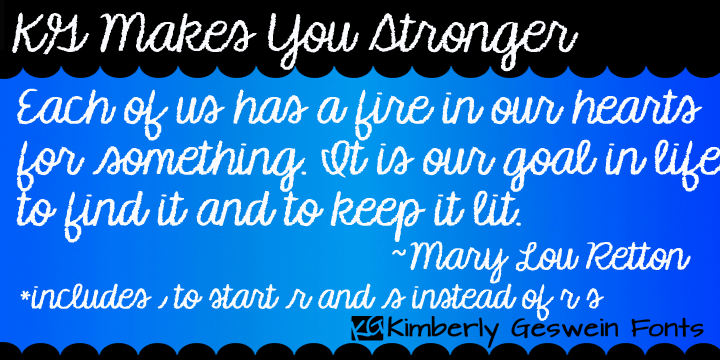
KG Makes You Stronger
Kimberly Geswein
Free for personal use. Use the | key to create an intro stroke for the lowercase r and s. The bullet is a cute heart as well.